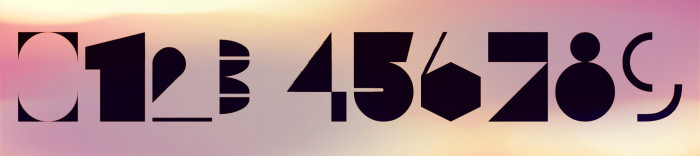
@Goatmeal: Thanks, master! The really difficult thing for me is to create a complete font with homogeneous characteristics, not especially to design a striking individual glyph.
Great font! I wanted to put it on my watch, but I changed the number 3 for myself. This font is also perfect for countdown.